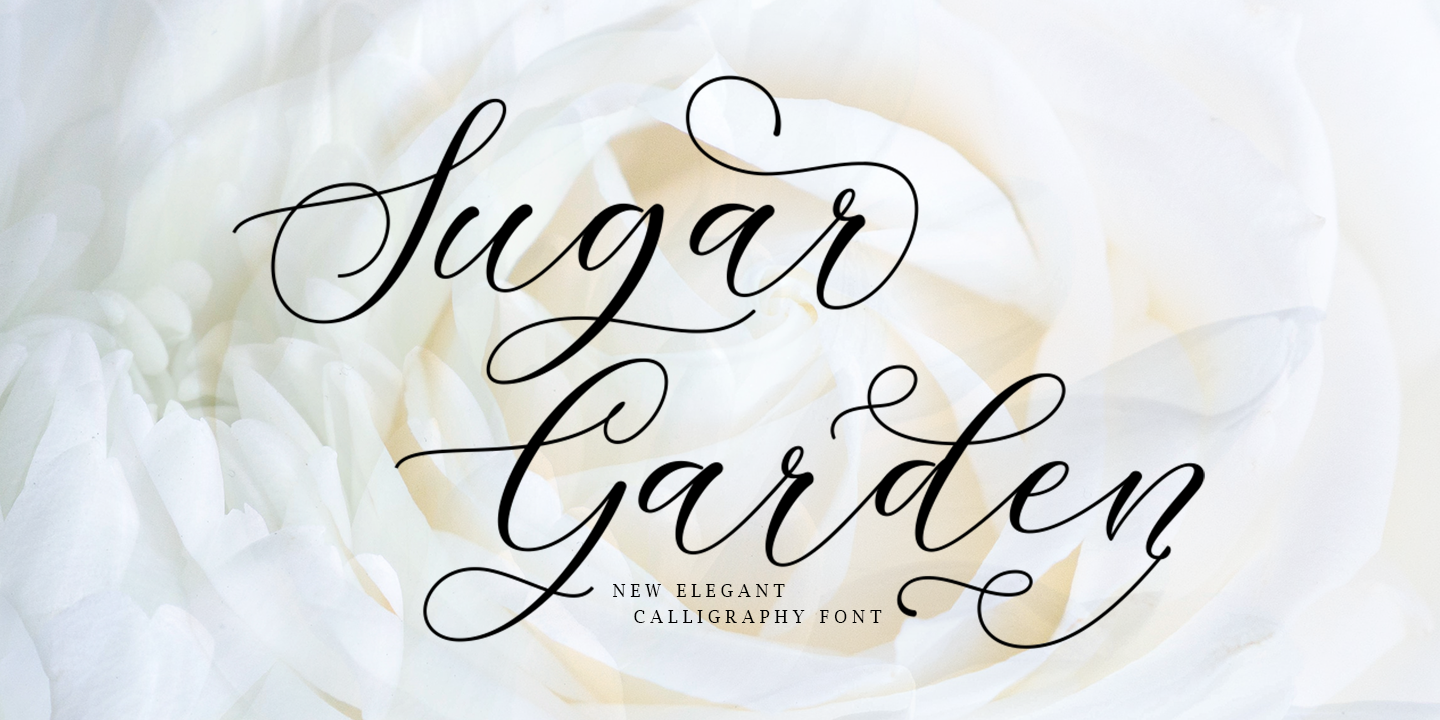
The Sugar Garden Font is a wonderfully charming and often whimsical handwritten typeface, characterized by its playful, organic forms and a sweet, inviting personality. Imagine its delightful characters gracing the labels of homemade jams or artisanal baked goods, adding a warm and personal touch to boutique cafe branding, or creating inviting titles for children's storybooks and creative craft projects. Its natural connections, subtle imperfections, and elegant ligatures also make it an excellent choice for unique greeting cards, joyful social media graphics, lifestyle blogs, and any design where a genuine, homespun, and approachable feel is desired. Whether you're aiming for a warm, natural look or a distinctly artistic touch with a touch of sweetness, Sugar Garden Font delivers with its undeniable charm, ensuring your visuals feel both authentic and appealing.
What makes Sugar Garden Font so exciting is its remarkable ability to infuse designs with immediate personality and a sense of genuine human connection, reminiscent of handmade delights and heartfelt moments. In a digital world often dominated by sleek, mass-produced designs, this font offers a refreshing dive into a more tactile, intimate aesthetic. It evokes a feeling of sincerity and creativity, making your designs feel more approachable and memorable. It’s more than just a typeface; it’s a design element that can instantly set a warm, inviting, and authentic tone for a project, making content feel more relatable and trustworthy. Designers will find it an invaluable asset for creating visuals that truly resonate with an audience seeking originality and a personal touch infused with warmth.
The Sugar Garden Font family is typically structured to offer a thoughtful range of variations to enhance its usability and artistic potential. While the primary Sugar Garden Regular script provides that distinctive handwritten look, you might find companion styles such as a slightly bolder Sugar Garden Bold for emphasis, or various Sugar Garden Swashes and ligatures that allow for even greater customization and natural flow between letters. Script fonts of this caliber often come with extensive OpenType features, including stylistic alternates and contextual alternates, ensuring truly organic and beautiful connections that mimic authentic penmanship. These diverse family members provide designers with the flexibility to create cohesive and sophisticated layouts that maintain the font's unique charm while offering practical solutions for various design needs.